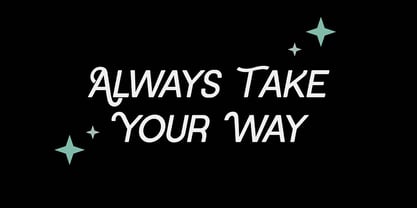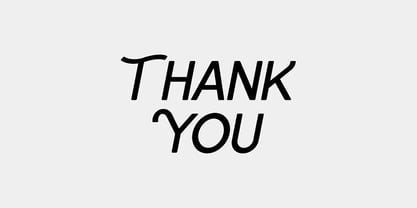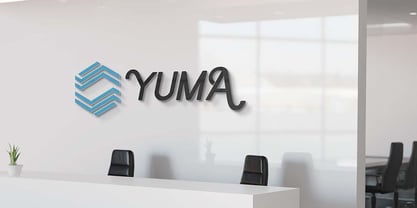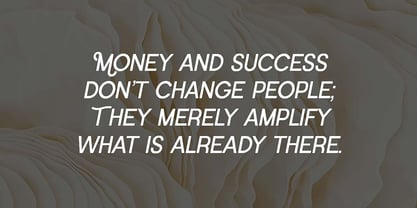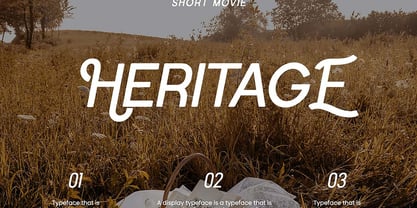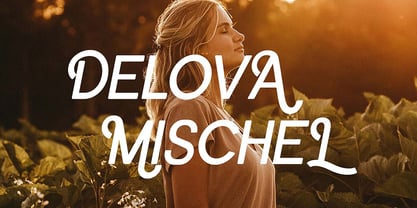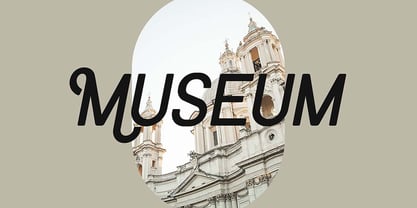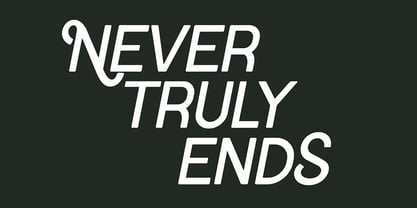
Zaddick
La familia tipográfica Zaddick fue diseñada por Hero y publicada por UICreative. Zaddick contiene 2 estilos y opciones de paquete familiar. Más información sobre esta familia
The Zaddick Elegant Serif Display Font . The modern display font feels beautiful classy, elegant, and stylish. This font is ideally suited for a wide variety of projects, such as signature, stationery, logo, wedding, typography quotes, magazine or book covers, website headers, branding, and more. Also, fashion-related branding or editorial design displays both masculine and feminine qualities.